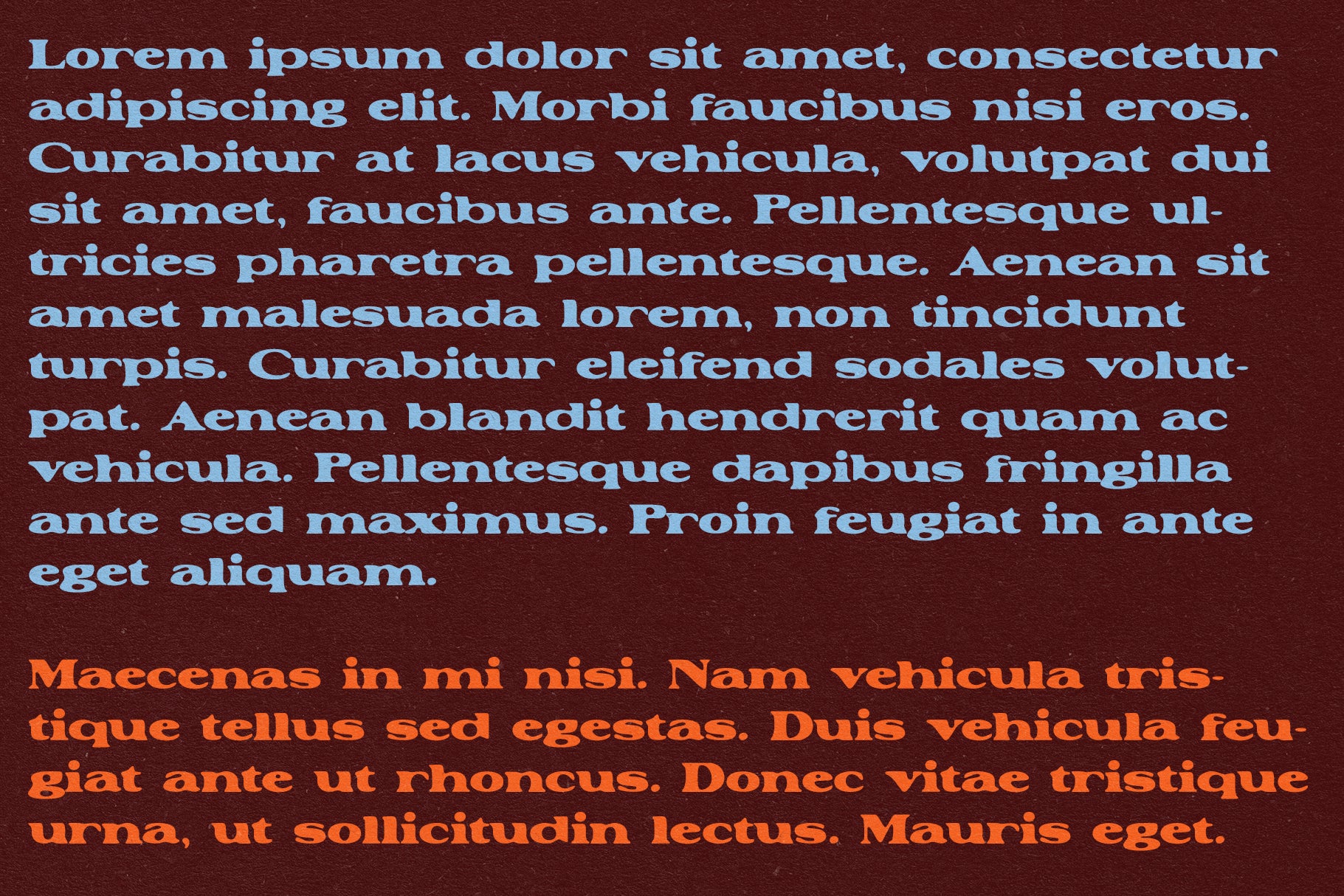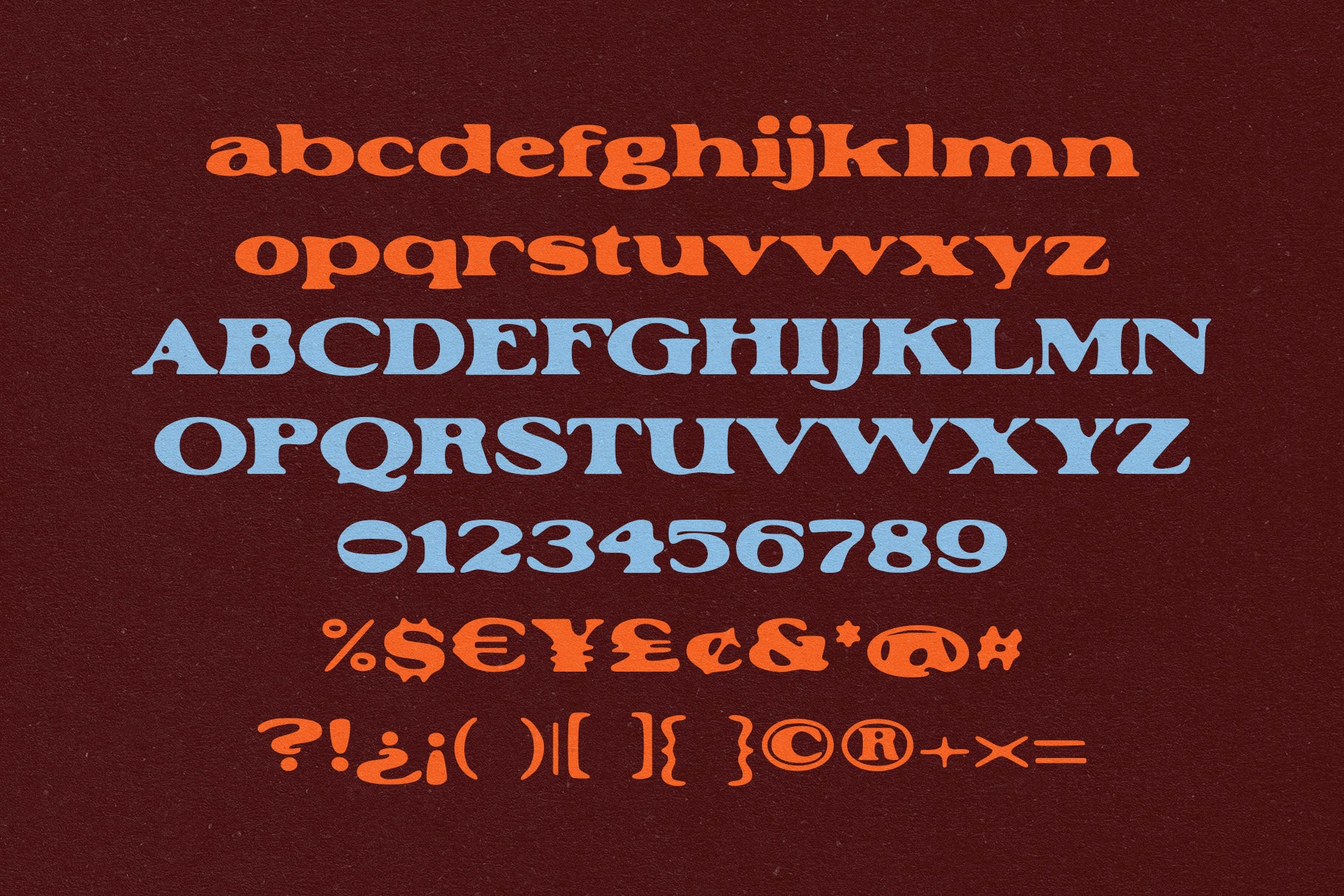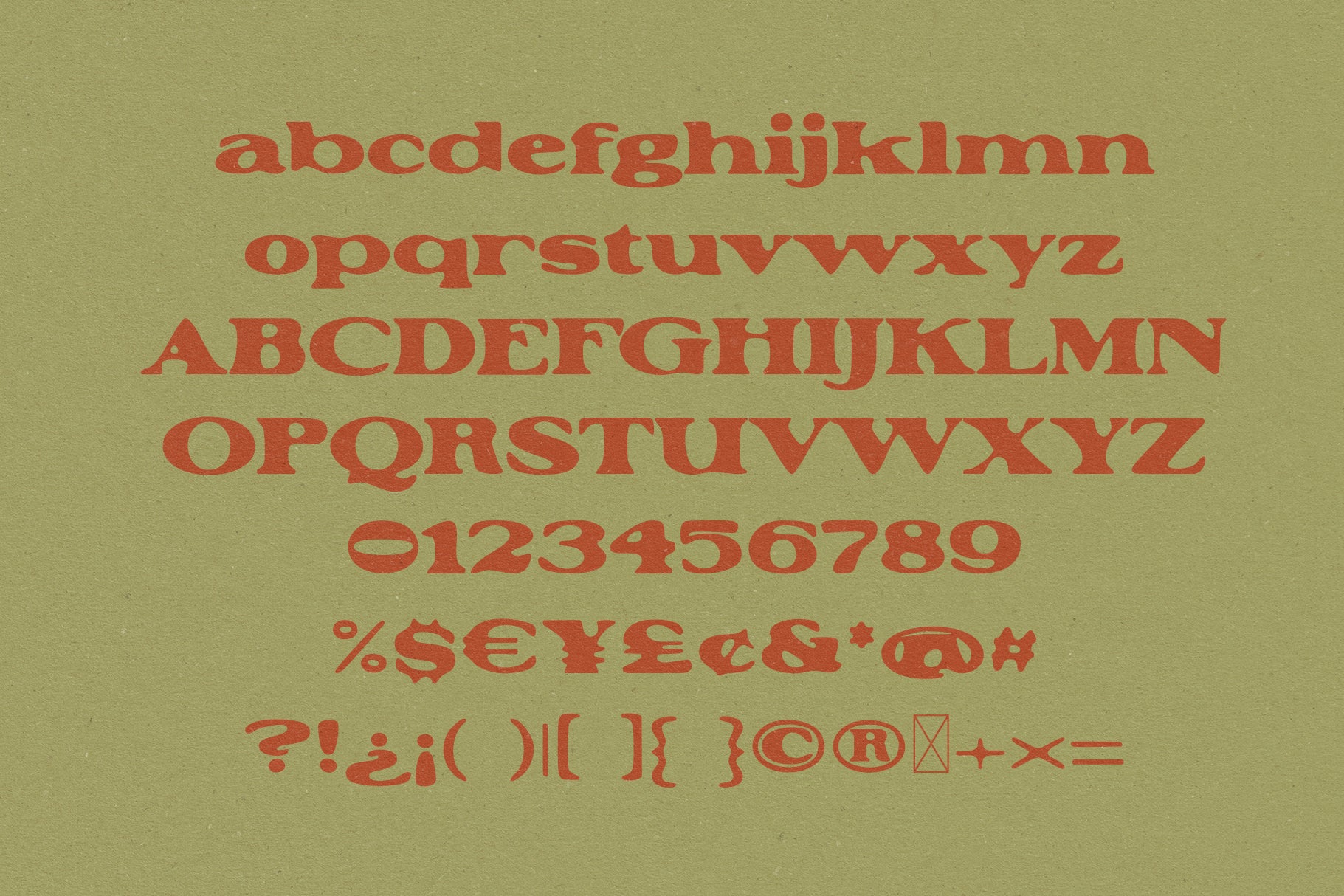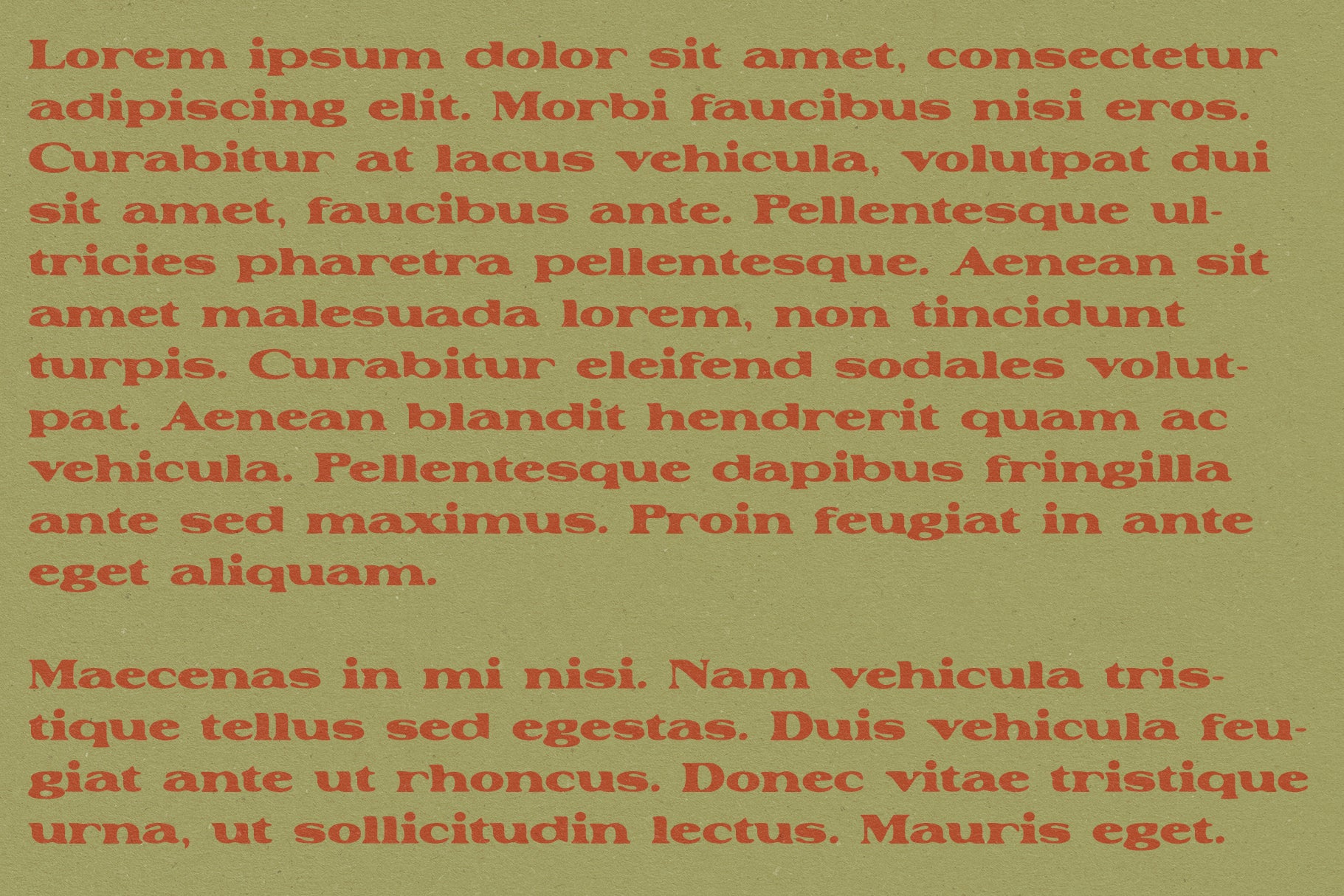
Davey Typeface
I wanted to make a fairly casual, but very usable typeface that's clear to read but unique enough to stand out. It has a friendly feel and unfussy look to it which I love.
Includes multiple language support and punctuation.